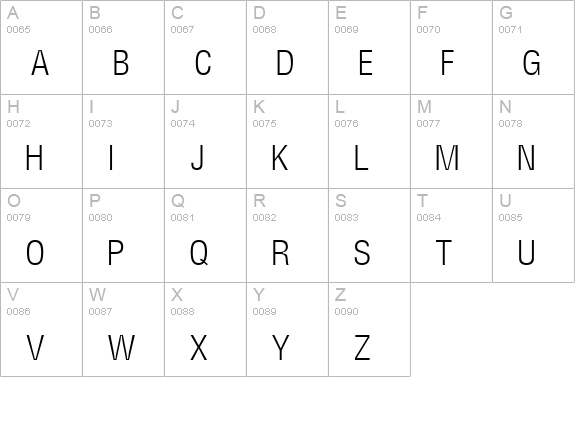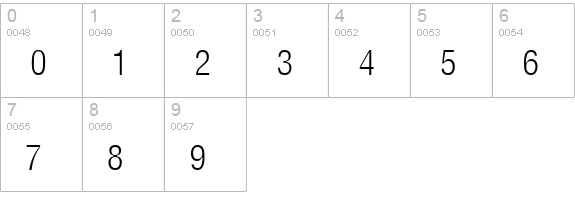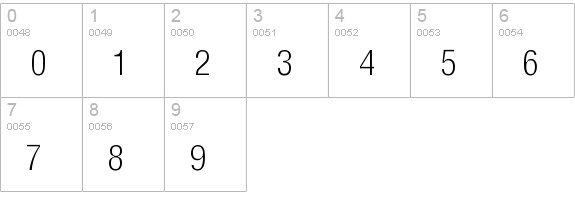
Siradze Font Details
Siradze is a visually stunning font that embodies elegance and sophistication. With its graceful curves and unique letterforms, Siradze captivates the eye and adds a touch of class to any project. This exquisite font is designed with meticulous attention to detail, making it perfect for luxury branding, high-end invitations, and editorial designs. One of the most notable features of Siradze is its versatility. It effortlessly transitions from bold headlines to delicate body text, making it a go-to choice for designers looking to create a cohesive visual experience. Its legibility remains impeccable, even at smaller sizes, allowing readers to effortlessly absorb the message conveyed. What sets Siradze apart is not only its aesthetic appeal but also its accessibility. This font is freely available to download at FontsMarket.com, making it accessible to designers and creatives of all backgrounds. Whether you're a seasoned professional or an aspiring designer, Siradze empowers you to bring your visions to life without any limitations. With its extensive character set, Siradze supports multiple languages, ensuring that your message can reach a global audience. From English to French, German to Spanish, Siradze effortlessly adapts to suit your needs, allowing you to create captivating designs that resonate with people from all corners of the world. In conclusion, Siradze is a breathtaking font that combines elegance, versatility, and accessibility. With its stunning design, it adds a touch of sophistication to any project, while its freely available download at FontsMarket.com ensures that it is accessible to all. Whether you're designing a logo, crafting an invitation, or creating editorial layouts, Siradze is the perfect choice to elevate your design and leave a lasting impression.